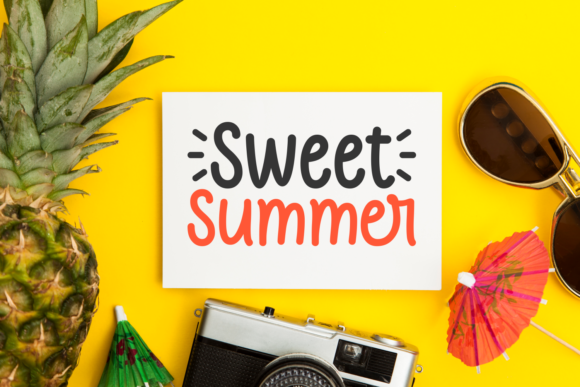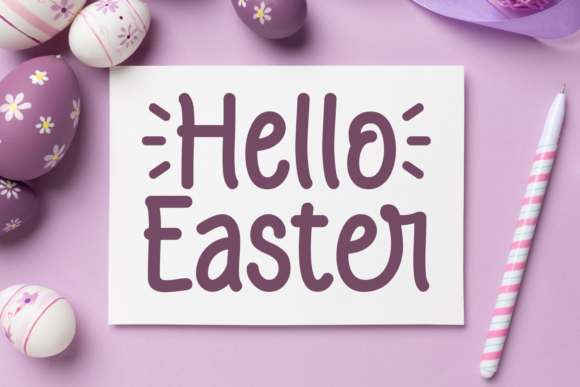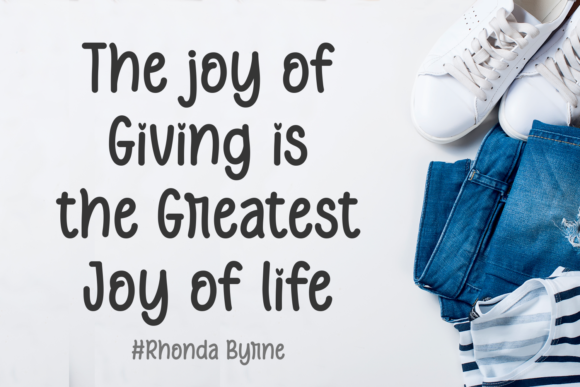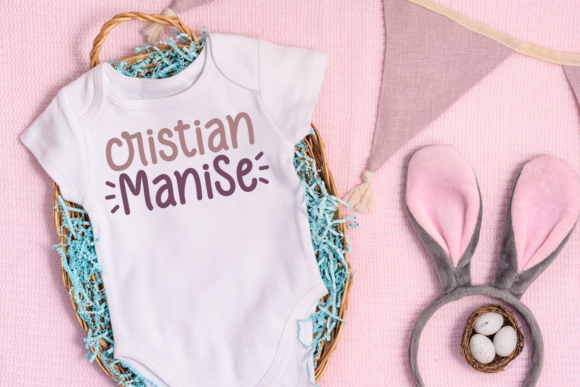
Easter Coming Font: The Perfect Addition to Your Easter Designs
As Easter approaches, designers and crafters are on the lookout for the perfect font to add a touch of whimsy and fun to their creations. Look no further than the Easter Coming Font, a cute handwritten font that’s perfect for kids’ clothing, magazines, logos, Easter cards, birthday cards, quotes, t-shirts, art prints, and more.
What is Easter Coming Font?
Easter Coming Font is a unique and charming handwritten font that’s designed to bring a smile to your face. Its playful and carefree vibe makes it an ideal choice for Easter-themed designs, but it’s also versatile enough to be used for other spring-inspired projects or anytime you want to add a touch of whimsy to your work.
Features of Easter Coming Font
- Cute and playful design: Easter Coming Font features a delightful handwritten design that’s sure to capture the spirit of Easter and add a touch of fun to your projects.
- Handwritten style: This font boasts a natural, handwritten look that’s perfect for creating personalized and unique designs.
- Multipurpose use: From kids’ clothing and Easter cards to logos and art prints, Easter Coming Font is versatile enough to be used for a wide range of projects.
- Easily readable: Despite its playful design, Easter Coming Font is clear and easy to read, making it perfect for use in quotes, posters, and other text-heavy designs.
Why Choose Easter Coming Font?
There are many fonts to choose from, but Easter Coming Font stands out for its unique combination of playfulness and readability. Here are just a few reasons why designers and crafters love this font:
- Instant Easter vibe: With Easter Coming Font, you can instantly add an Easter touch to your designs without having to spend hours searching for the perfect font.
- Customizable: This font can be easily customized to fit your project’s needs, from adjusting the size and color to adding textures and effects.
- Time-saving: With Easter Coming Font, you can quickly create professional-looking designs without having to spend hours designing from scratch.
Ideas for Using Easter Coming Font
Easter Coming Font is a versatile font that can be used in a variety of projects. Here are some ideas to get you started:
- Easter cards and invitations: Add a personal touch to your Easter cards and invitations with this charming font.
- Kids’ clothing and accessories: Create adorable Easter-themed clothing and accessories for kids with Easter Coming Font.
- Easter-themed art prints: Design beautiful Easter-themed art prints featuring your favorite quotes or images.
- Spring-inspired logos: Use Easter Coming Font to create a unique and eye-catching logo for your spring-inspired brand or product.
Tips for Using Easter Coming Font
Here are some tips for getting the most out of Easter Coming Font:
- Experiment with colors: Try pairing Easter Coming Font with bright, pastel colors to create a fun and playful Easter look.
- Mix and match fonts: Combine Easter Coming Font with other fonts to create a unique and eye-catching design.
- Use it sparingly: Use Easter Coming Font sparingly to add a touch of whimsy to your design without overwhelming the viewer.